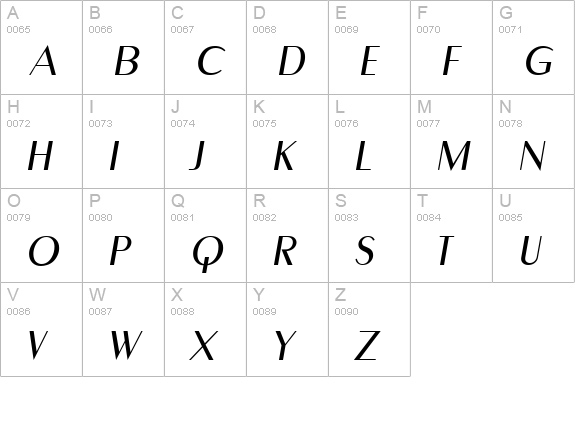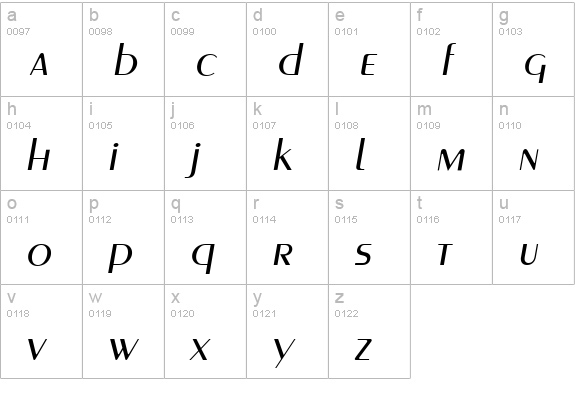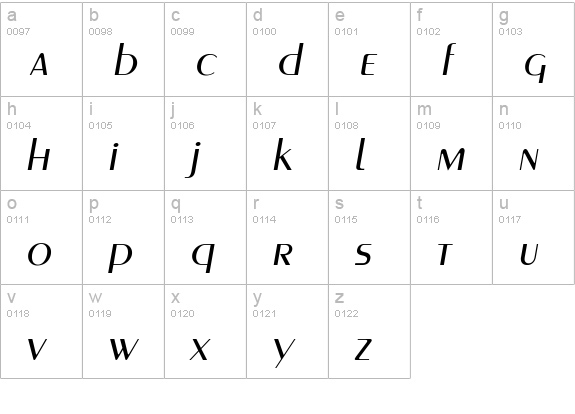
Greyhound-Italic is a distinctive, italic variant in the Greyhound typeface family \xE2\x80\x94 well suited to design and typography projects.
Introducing Greyhound-Italic font, a sleek and modern typeface that exudes elegance and sophistication. With its stylish italic design, Greyhound-Italic is perfect for adding a touch of class to your projects. Whether you're designing a logo, creating a branding package, or crafting a visually stunning website, Greyhound-Italic is sure to make a statement. But the best part? Greyhound-Italic is available for free download at FontsMarket.com. That's right, you can elevate your designs with this stunning font without having to spend a dime. Don't miss out on this opportunity to enhance your creative projects with Greyhound-Italic – download it now and see the difference it can make!